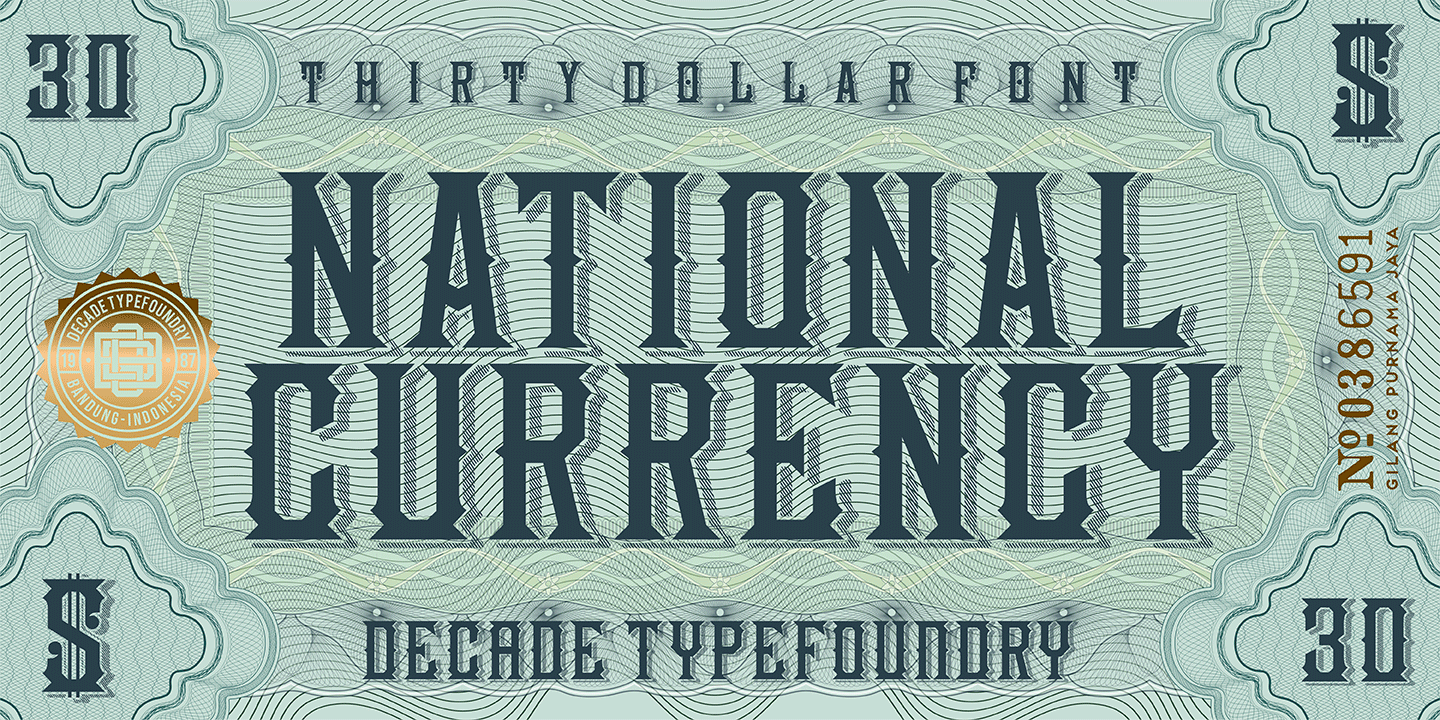
National Currency Font is a distinctive and highly specialized typeface, meticulously designed to mimic the intricate and ornate lettering found on historical banknotes and official documents. It's perfectly suited for projects that aim to evoke a sense of authenticity, tradition, and intricate craftsmanship. Imagine it gracing the security features of commemorative certificates, adding a historical touch to museum exhibit displays, or creating compelling visuals for period films and theatrical productions. Its detailed lines, often with subtle decorative flourishes, also make it an excellent choice for crafting unique invitations for formal events, designing elegant branding for heritage-focused businesses, and enhancing the visual appeal of historical re-enactment materials. Whether you're aiming for an antique, authoritative, or genuinely intricate aesthetic, National Currency Font delivers a powerful and visually rich identity that speaks of security and tradition.
What makes National Currency Font truly exciting is its ability to instantly transport viewers to an era of detailed artistry and meticulous engraving. This isn't just a font; it’s a piece of historical design, imbuing your text with the prestige and gravitas associated with official documents and valuable currency. The precision in its character construction, often replicating the delicate serifs and complex counterforms, contributes to its unique aesthetic. This makes it incredibly effective for projects where you want to convey authenticity, a sense of legacy, or an air of exclusivity. National Currency Font stands out by offering a unique blend of historical accuracy and decorative elegance, making it a compelling choice for designers seeking to evoke a sense of heritage and intricate beauty.
The National Currency Font family typically focuses on delivering its distinctive, intricate aesthetic, often featuring a core set of styles that highlight its unique characteristics rather than a wide range of traditional weights. You can usually find a standard Regular version, sometimes complemented by a slightly bolder or more condensed variant to provide subtle emphasis. Due to its highly decorative nature, extensive weight variations or traditional italic forms are less common. Instead, National Currency Font might offer unique alternative characters, ligatures, or specialized glyphs that enhance its ornate appeal, allowing designers to create even more intricate and authentic designs. For anyone seeking National Currency Font Free Download, exploring these detailed stylistic options is key to unlocking its full potential for truly historical and captivating typographic creations.